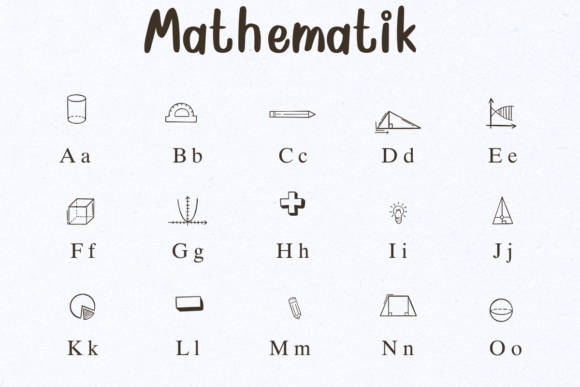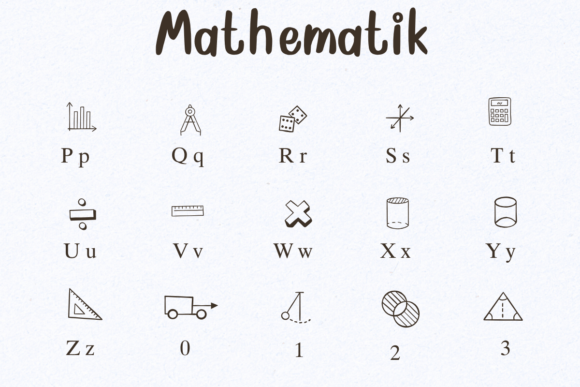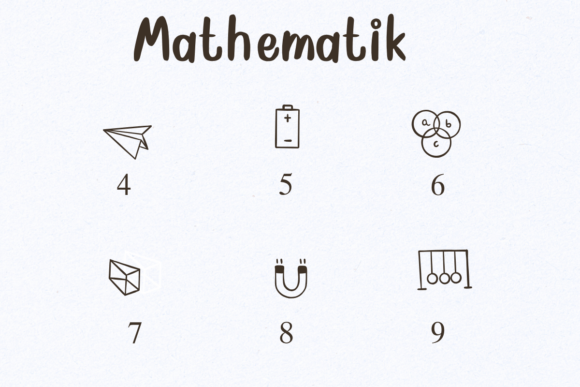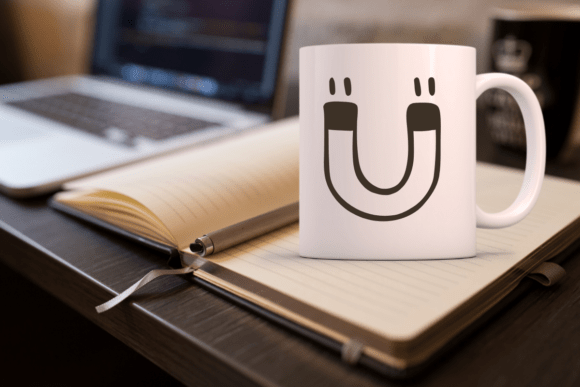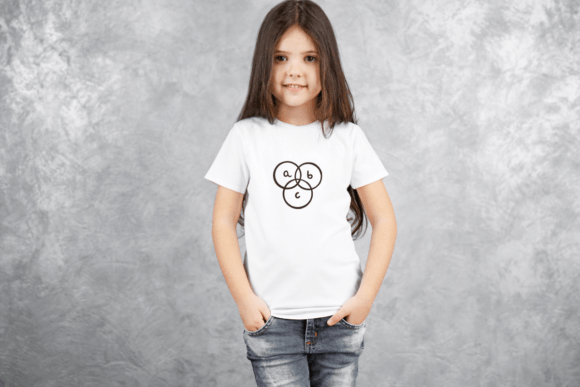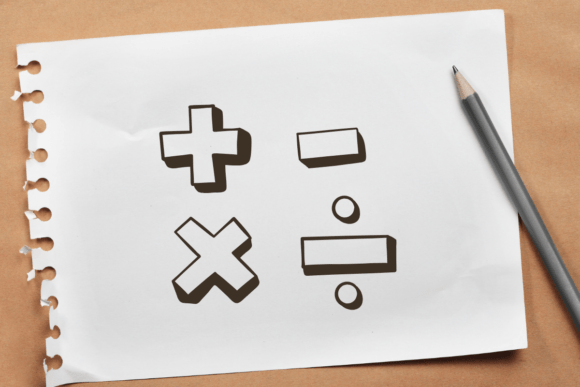
Introduction to Mathematik Font
As you sit at your desk, surrounded by papers, pens, and a blank canvas, you’re hit with a burst of creative energy. You want to bring your imagination to life, but the right tools are missing. This is where the Mathematik Font comes in – a game-changing design resource that will elevate your creative project to new heights.
Imagine having access to a high-quality, versatile font that can be used in various applications, from graphic design to digital art. With Mathematik Font, you’ll be able to create stunning visuals with ease, thanks to its transparent background and seamless integration with popular design software like Procreate and Affinity Designer. Whether you’re a seasoned designer or a hobbyist, this font is a valuable addition to your toolkit.
Key Features of Mathematik Font
- High-quality design: Mathematik Font offers a unique and elegant style suitable for creative projects, such as book covers, posters, and more.
- High-resolution design: Mathematik Font is designed at a high resolution, ensuring crisp and clear typography even at large sizes.
- Unique characteristics: This font features a distinctive and modern style, with clean lines and geometric shapes, making it perfect for creative projects that require a touch of sophistication.
Honest Review: Mathematik Font
I recently stumbled upon the Mathematik Font, and I must say it’s a fantastic addition to any designer’s arsenal. ✨ The font’s clean and modern design makes it perfect for a wide range of creative projects, from tech startups to educational materials.
Here are some of the things that work well with Mathematik Font:
- High-quality design that’s perfect for modern projects
- Perfect for a wide range of creative projects
- May not be suitable for very traditional or vintage projects
- Some users may find the font too modern or trendy
Overall, I’m really impressed with the Mathematik Font. It’s a solid design resource that can add a lot of value to any project. With its high quality and versatility, it’s definitely worth checking out.
Tips for Getting the Most Out of Mathematik Font
Mathematik Font is a high-quality design resource that can add a touch of sophistication to your creative project. To get the most out of it, use it in conjunction with a transparent background to create a clean and minimalist design. You can also experiment with different font sizes and styles to add visual interest to your design.